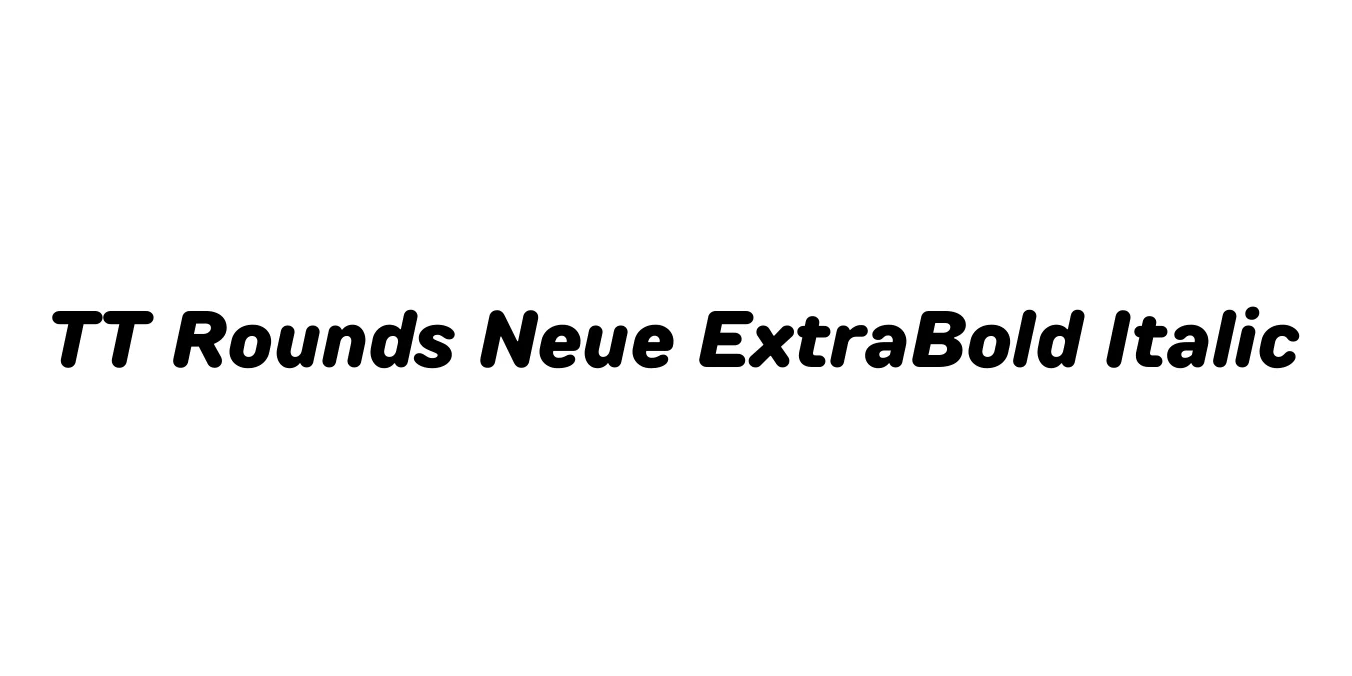
TT Rounds Neue ExtraBold Italic
Designed by TypeType Team
| Category | Rounded Sans-Serif |
| Designer | TypeType Team |
| Similar Fonts | VAG Rounded, Gotham Rounded, Museo Sans Rounded, Proxima Soft |
TT Rounds Neue ExtraBold Italic is a comprehensive update to the classic TT Rounds font family, meticulously redesigned by the TypeType foundry to meet modern digital and print standards. This specific weight, ExtraBold Italic, features a robust and powerful thickness paired with a dynamic slant that evokes energy and approachability. The design process focused on refining proportions and improving legibility, resulting in a more sophisticated and versatile rounded sans-serif that excels in high-impact visual communication.
The typeface is characterized by its meticulously balanced geometry and soft, friendly terminals that convey warmth without sacrificing professional integrity. It supports a wide range of languages and includes extensive OpenType features, making it an excellent choice for complex branding systems and user interface designs. Whether used for bold headlines in advertising or as a signature element in product packaging, TT Rounds Neue ExtraBold Italic provides a consistent and inviting visual language for contemporary brands.
TT Rounds Neue ExtraBold Italic Best Uses
Ideal for creating friendly and modern corporate identities for tech or consumer brands.
Perfect for high-impact food and beverage or children's product packaging.
Excellent for attention-grabbing headlines, promotional posters, and social media graphics.
Highly effective for prominent UI elements, buttons, and onboarding screens.